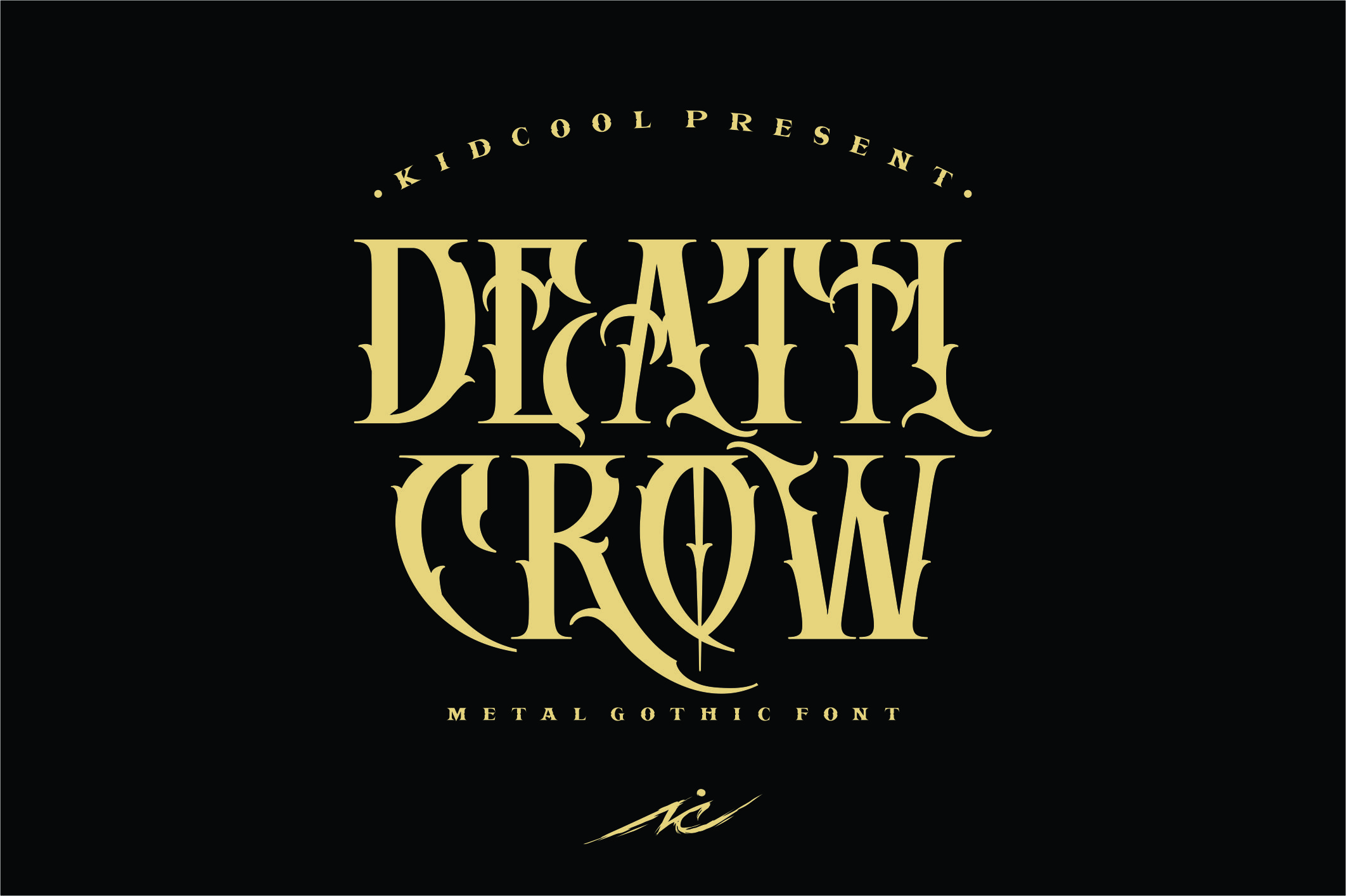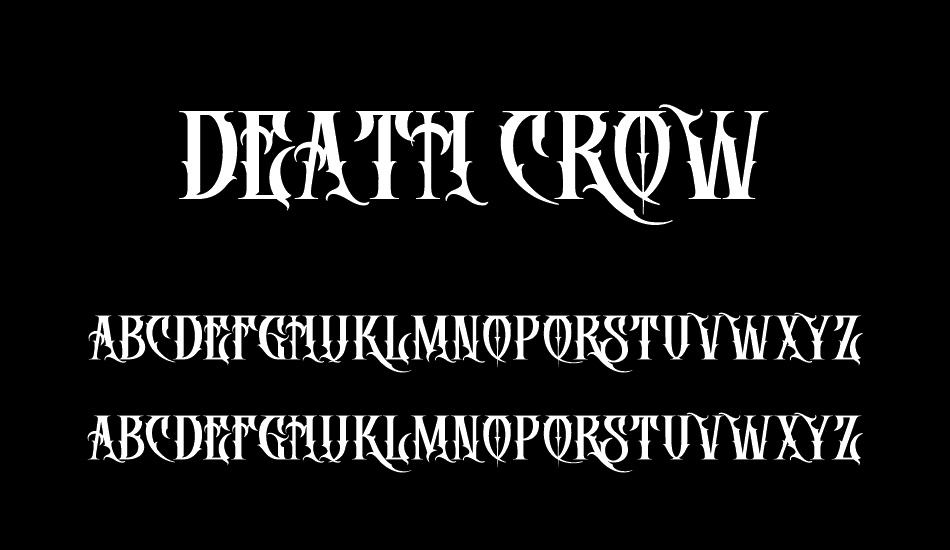
Death Crow Font
Death Crow Font - Web by senzana in fonts blackletter present our first product death crow font as we have seen, this font has a gothic metal style.